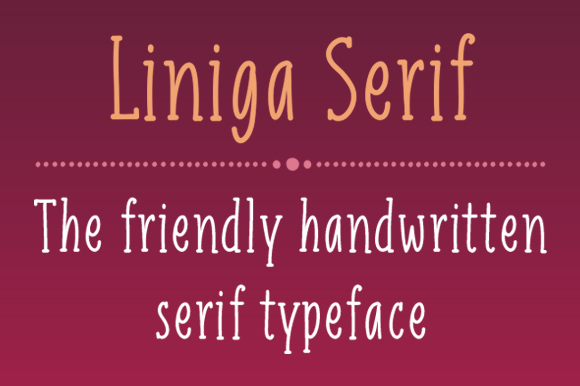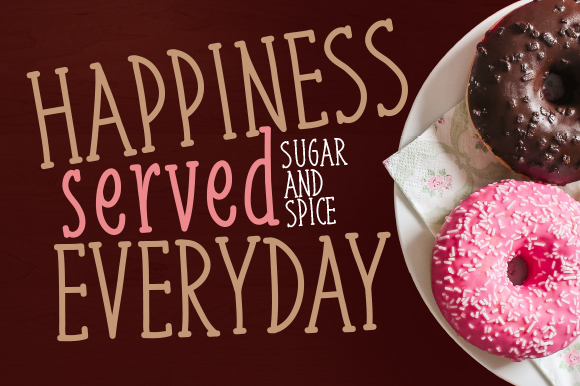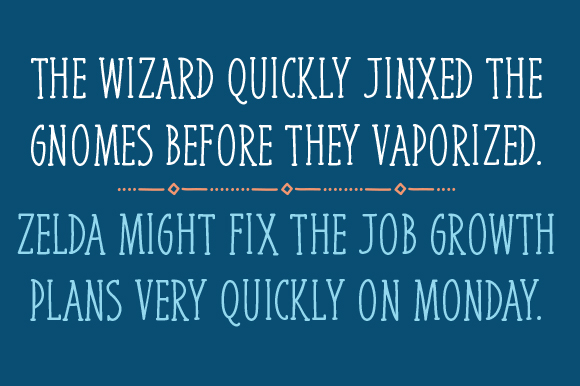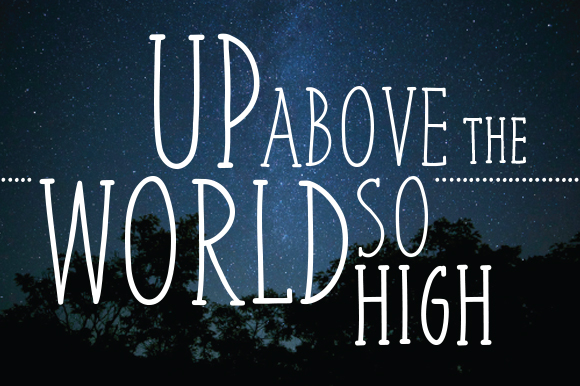
Liniga Serif Font
About Liniga Serif Font
Liniga Serif is a tall and friendly handwritten typeface with a simple structure and low contrast. It is the serif version of Liniga font.